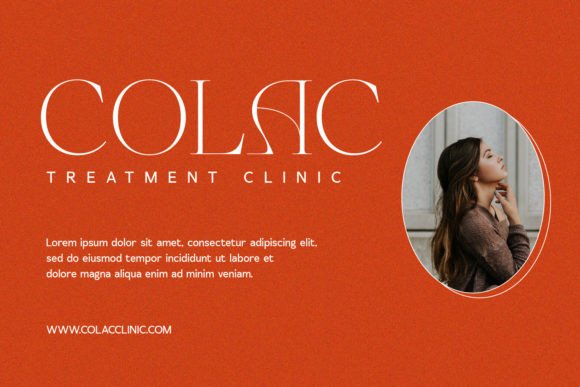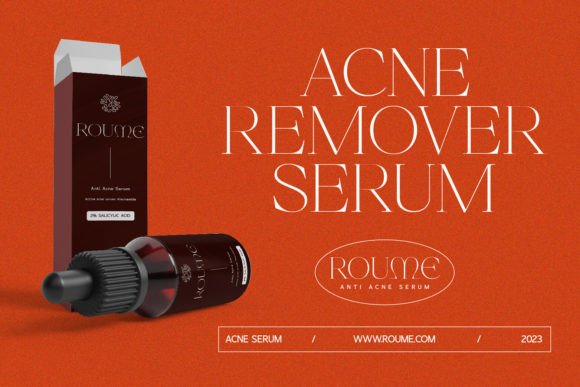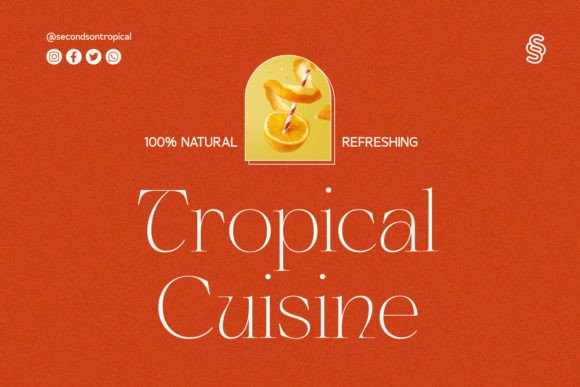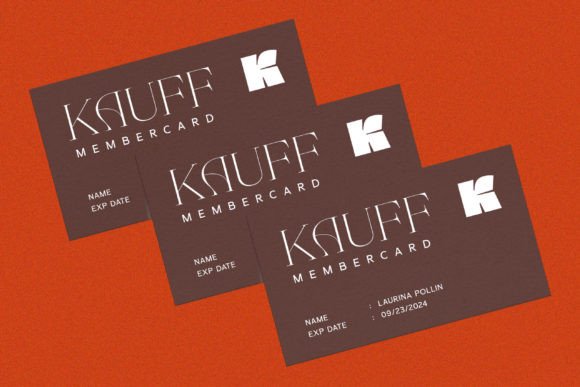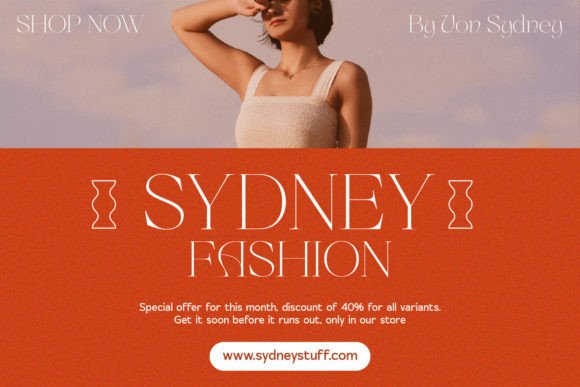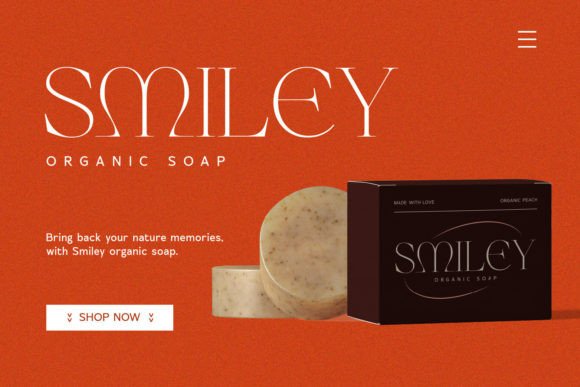
Introduction to Angel Peach Font
Angel Peach is a fancy and classy serif font with a touch of elegance and charm.
It is perfect for your up coming projects such as luxury logos and branding, classy editorial design, womens magazines, cosmetic brands, fashion promotions, art gallery branding, museums and so much more .